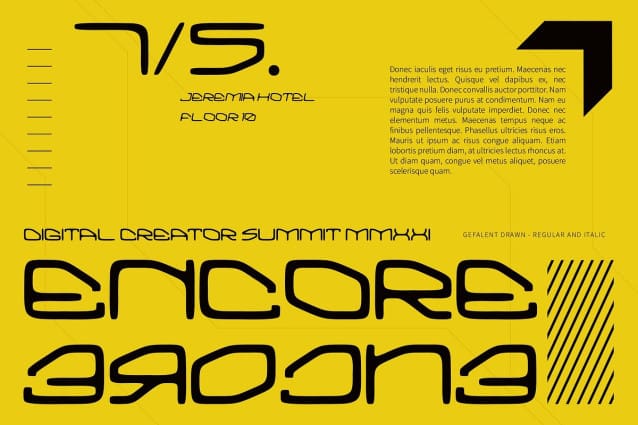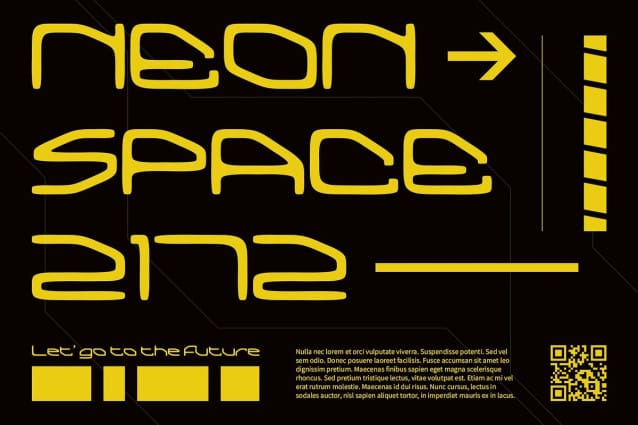
Gefalent Drawn Font
Gefalent Drawn Font is a modern display font that merges a futuristic and geometric design with a distinctive drawn effect. Its sharp, symmetrical shapes and clean lines convey innovation and advanced technology, making it perfect for contemporary designs. The geometric precision of the font creates a bold and striking appearance, ideal for showcasing modernity.
Artistic Drawn Effect for Unique Texture The drawn effect adds a unique, handcrafted texture to Gefalent Drawn, blending artistic charm with its sleek, geometric design. This combination of futuristic clarity and manual, creative character enhances the font’s visual interest, giving it a one-of-a-kind appeal that stands out in any context.
Ideal for Modern and Creative Designs Whether used for poster titles, logos, or any design that emphasizes modernity and creativity, Gefalent Drawn excels in delivering a striking and memorable visual impact. Its futuristic design and artistic drawn effect ensure that your projects make a bold statement while retaining a unique, creative edge.
Versatile for Cutting-Edge and Artistic Projects Gefalent Drawn’s blend of geometric sharpness and artistic texture offers versatility for a range of applications. From high-tech branding to creative promotional materials, this font provides a dynamic and engaging look that enhances the overall design with a touch of innovation and individuality.